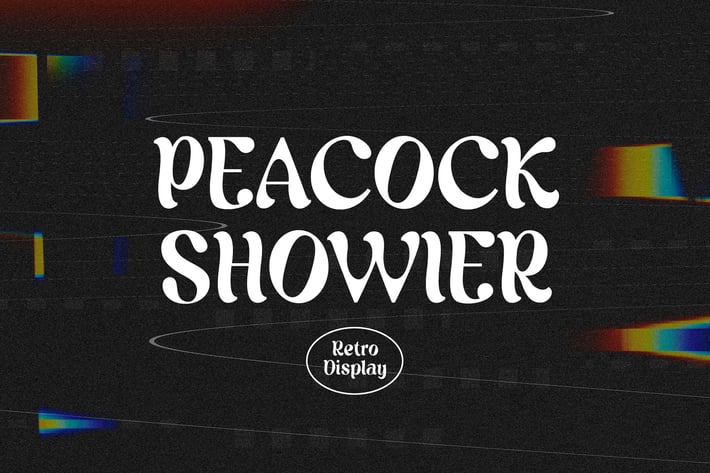
Peacock Showier Retro Serif Display Font
Introducing our new product the name is Peacock Showier Retro Serif Display Font. Peacock Showier Retro Serif Display Font that feels beautiful classy, elegant, and modern. This font is perfectly suited for a wide variety of projects, such as signature, stationery, logo, wedding, typography quotes, magazine or book covers, website headers, branding, packaging design, and more. Also, fashion-related branding or editorial design displays both masculine and feminine qualities.